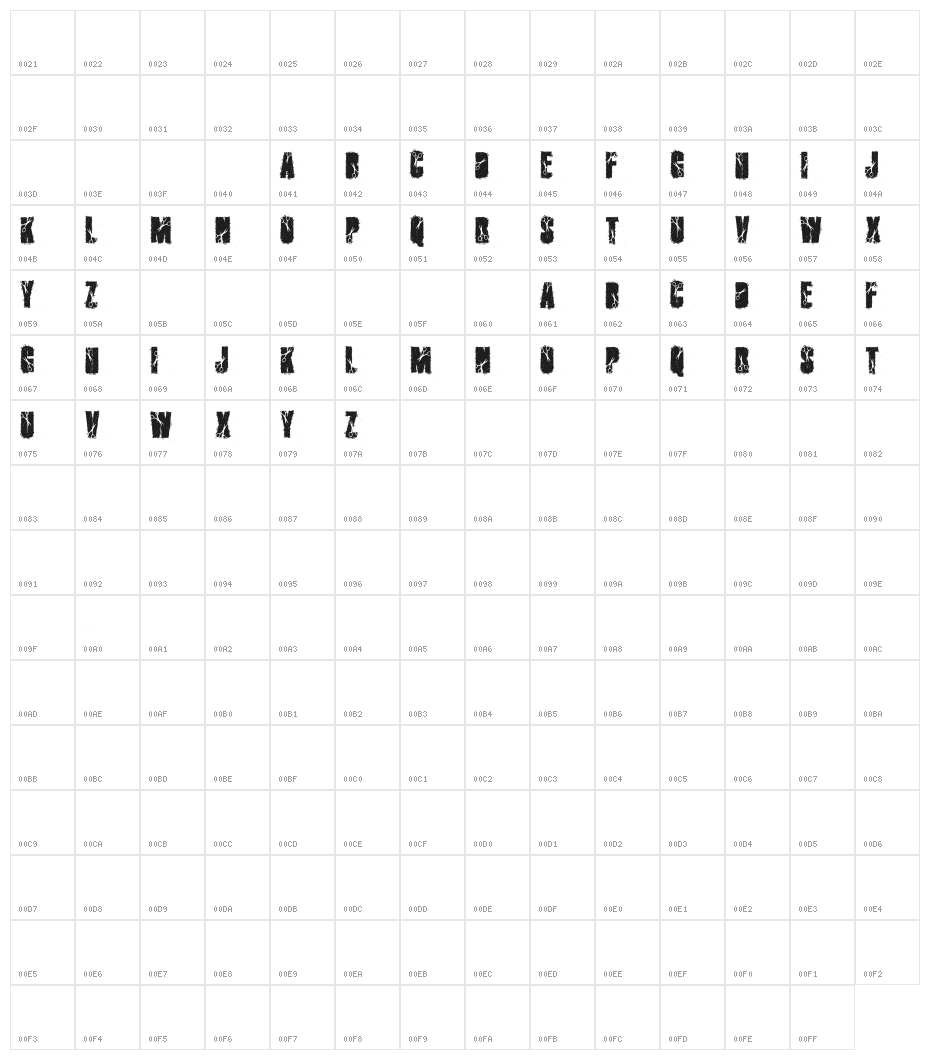
cutter Font
cutter Description
This font features a bold and edgy design with a distressed texture that gives it a rugged, grunge-like appearance. The characters are heavily stylized with sharp, angular edges and intricate details that resemble scratches or cuts, adding to its raw and dynamic feel. The font's unique aesthetic makes it stand out, making it ideal for projects that require a strong visual impact. Its boldness ensures readability while maintaining an artistic flair, making it suitable for creative and unconventional designs.
| Overall Style | Grunge, Edgy, Artistic |
| Proposed Projects | Ideal for album covers, posters, streetwear branding, and edgy graphic designs. |